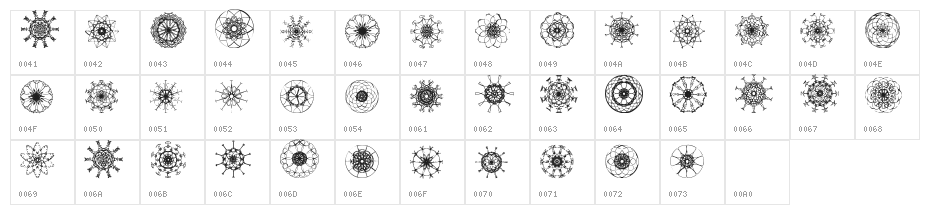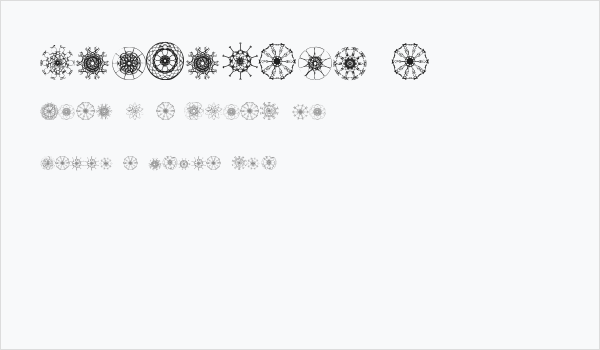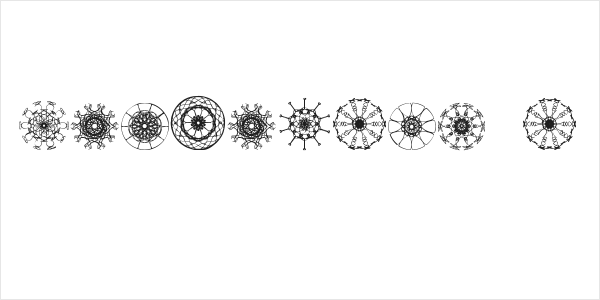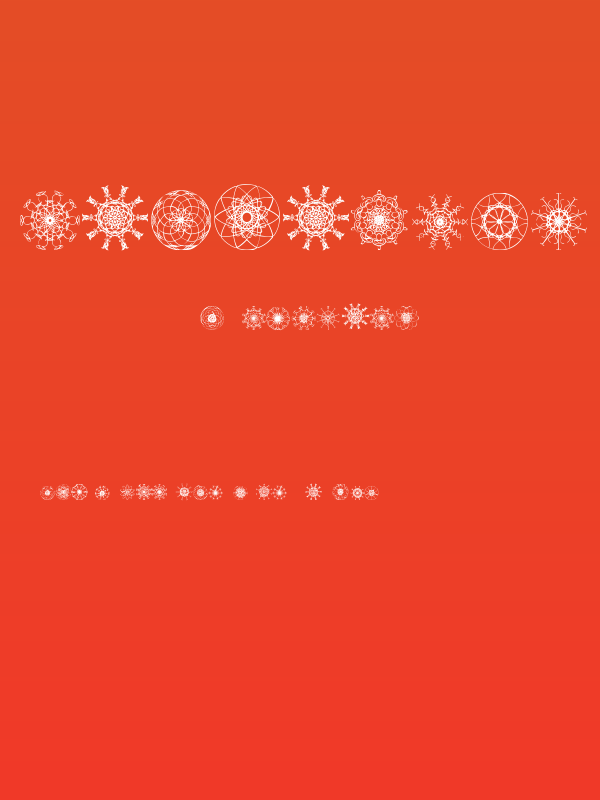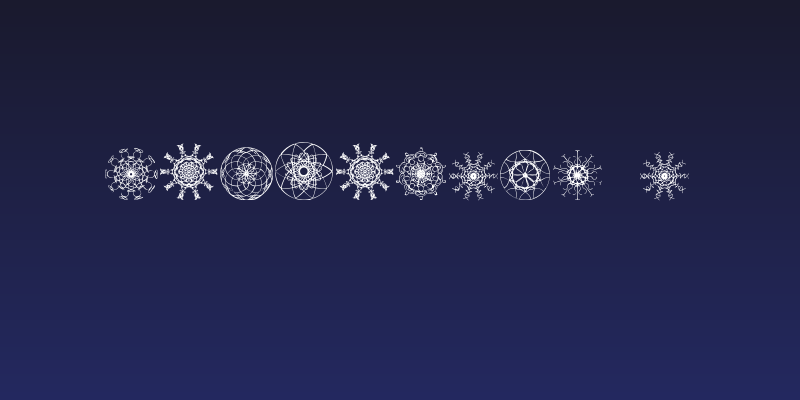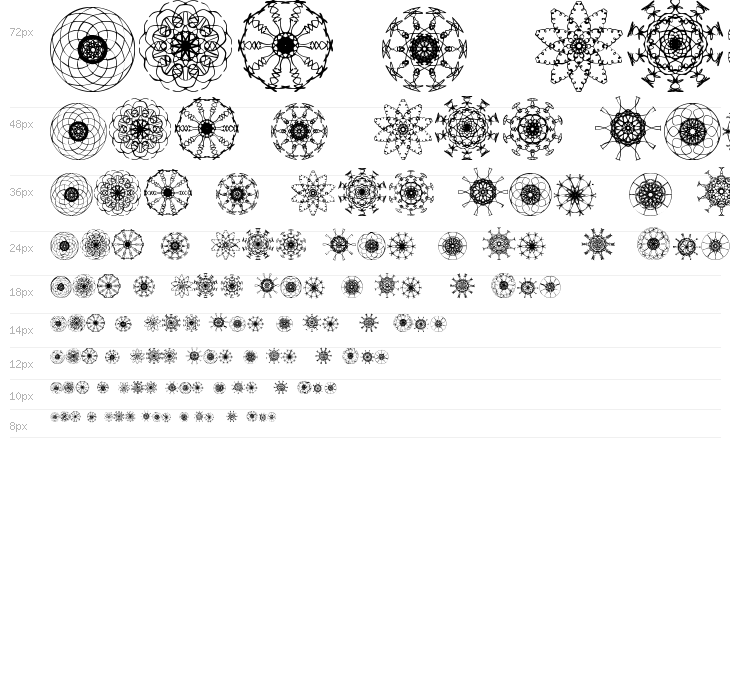
Mandalesque Font
Mandalesque Description
Highly decorative and intricate mandala-inspired glyphs, each character is a unique circular geometric pattern with detailed line work and symmetrical designs, evoking a hand-drawn, ornamental appearance.
Overall StyleDecorative, Artistic, Ornamental
Use CaseLogos, Posters, Decorative Titles, Art Projects
Proposed ProjectsSpiritual or meditation branding, adult coloring books, event invitations, posters, decorative initials, art projects.